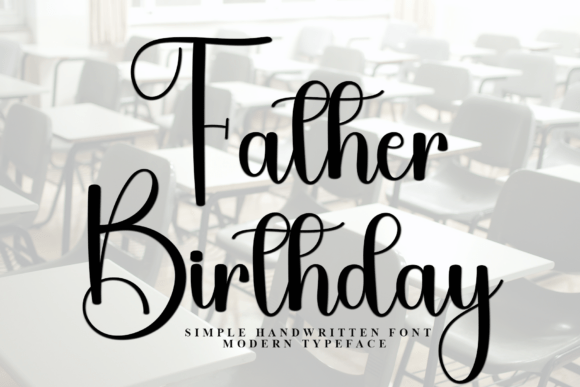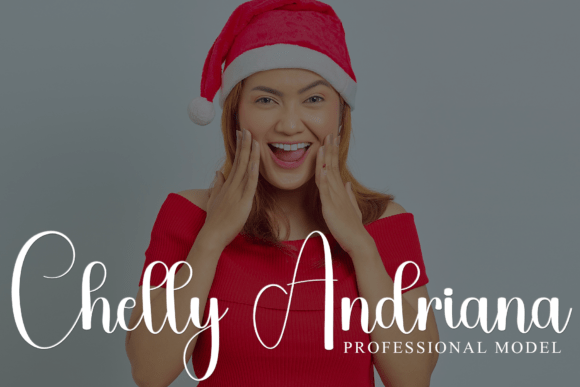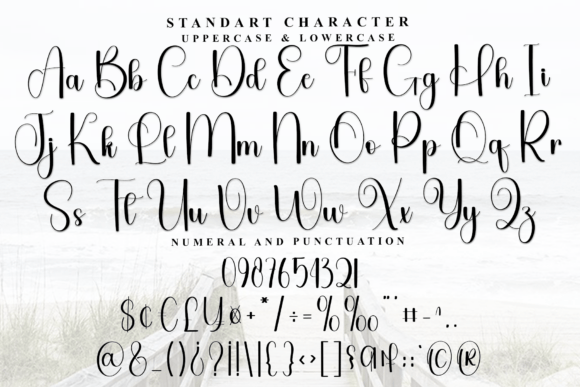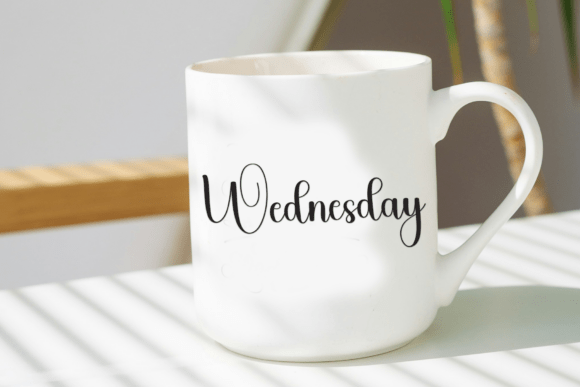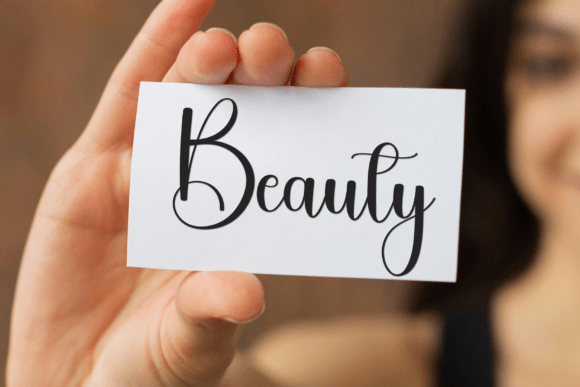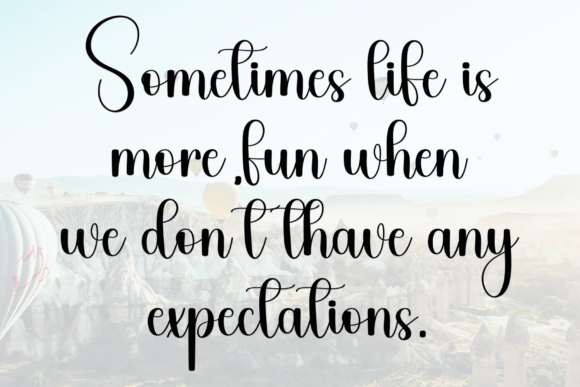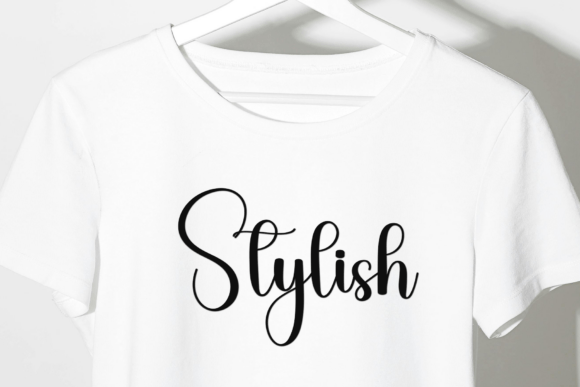
Get Ready to Celebrate the Magic of Father Birthday Font
It’s that time of the year again when you start rummaging through your favorite greeting card collection, looking for the perfect design to express your love and gratitude to your dad. As you sift through the aisles of craft stores, you stumble upon a beautiful card with a font that catches your eye. The swirly patterns, the playful flair, and the sense of nostalgia all combine to make you feel like you’ve found a treasure.
That’s exactly the kind of magic the Father Birthday Font brings to your designs. This festive and merry typeface is perfect for greeting cards, gift tags, and holiday-themed projects. With its decorative elements and whimsical flair, it adds a touch of enchantment to your words. Whether you’re a professional designer or a crafty enthusiast, the Father Birthday Font is a valuable addition to your toolkit.
Father Birthday Font Key Features
- Unique Characteristic: The font features a unique, hand-drawn design with a touch of elegance, making it perfect for creating personalized birthday cards and gifts for fathers.
Review of “Father Birthday Font”
I recently had the chance to work with “Father Birthday Font”, a font specifically designed for creating personalized birthday cards for dads. Here’s my honest review.
- The font is playful and perfect for creating fun, casual birthday cards for dads.
- The designer has done a great job of including a variety of swashes and flourishes to add a personal touch.
- The font is well-suited for digital use, making it easy to import and use in design applications.
- The font could benefit from a more comprehensive character set, including more punctuation and special characters.
- The swashes and flourishes can sometimes feel a bit overwhelming or cluttered, especially in shorter text.
- The font may not be suitable for formal or professional use, as it’s more geared towards casual, playful designs.
Overall, I think “Father Birthday Font” is a great option for designers looking to create fun, personalized birthday cards for dads. While it has some limitations, the font’s playful personality and variety of swashes make it a great choice for casual designs. With some additional development, I think this font has the potential to be even more effective.
The “Father Birthday Font” is ideal for:
- Birthday cards and invitations
- Personalized gifts and mementos
- Custom graphics and illustrations